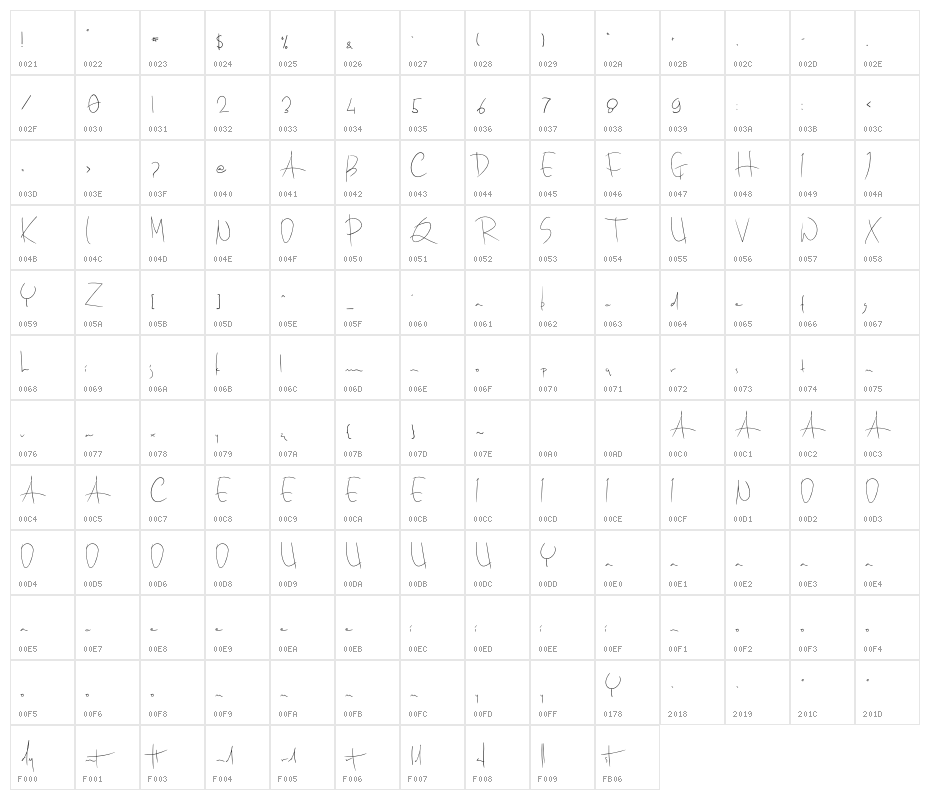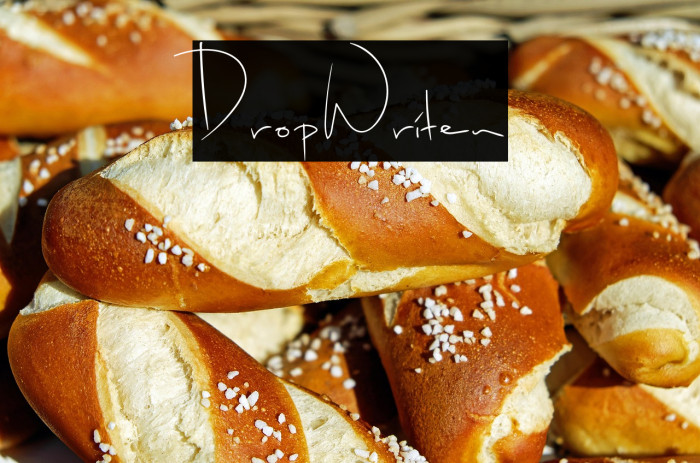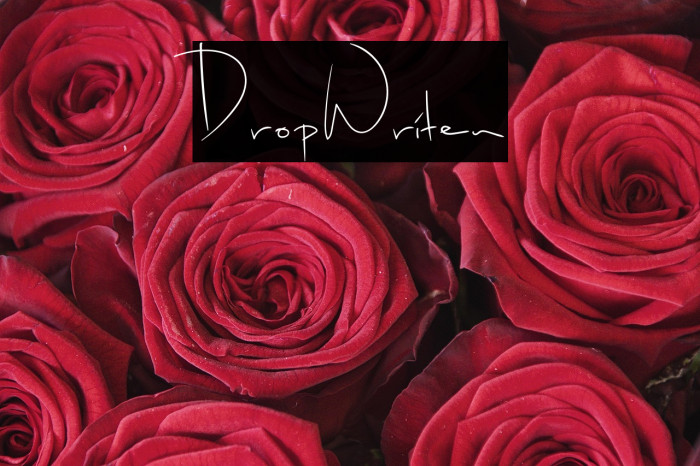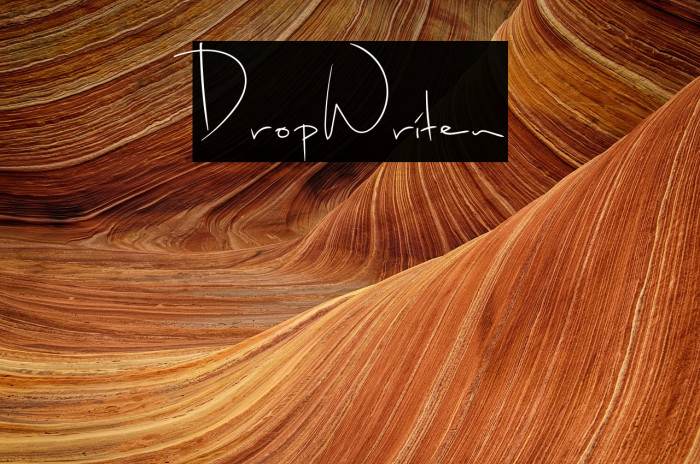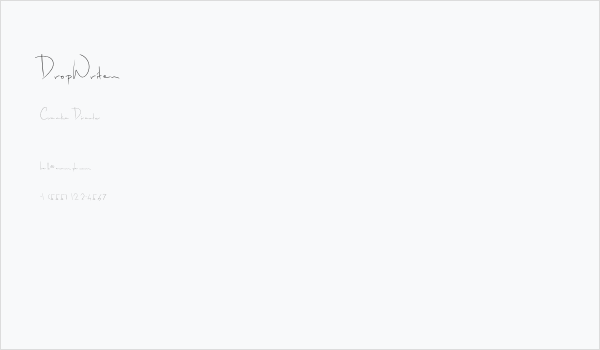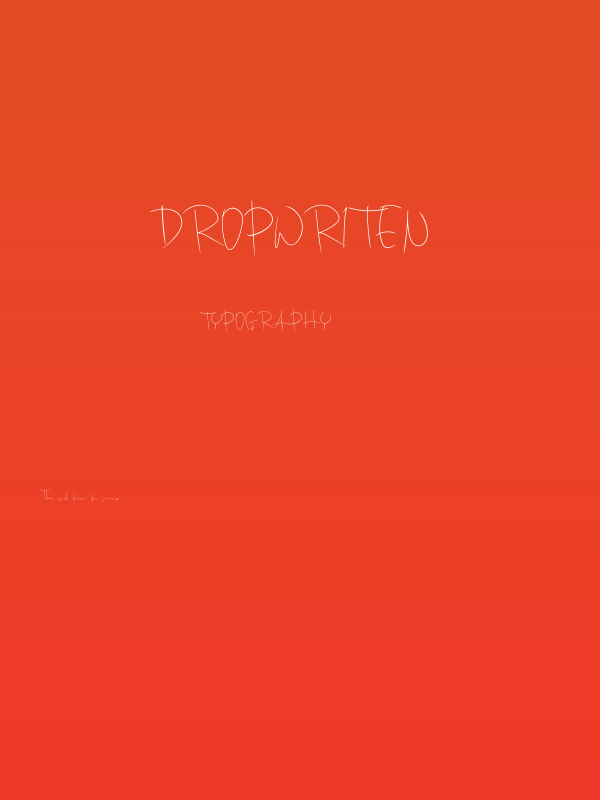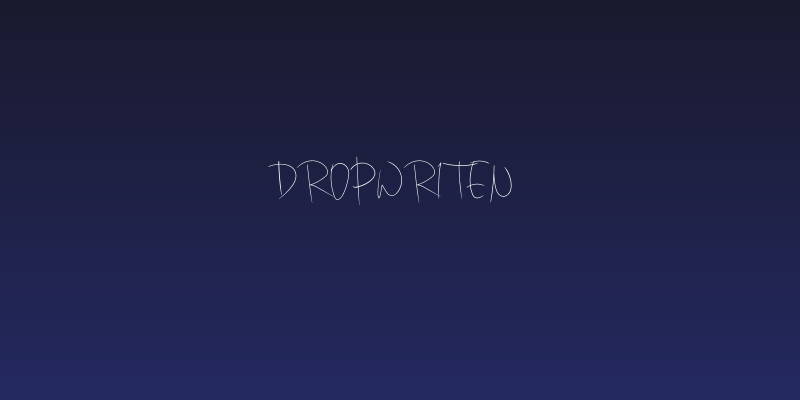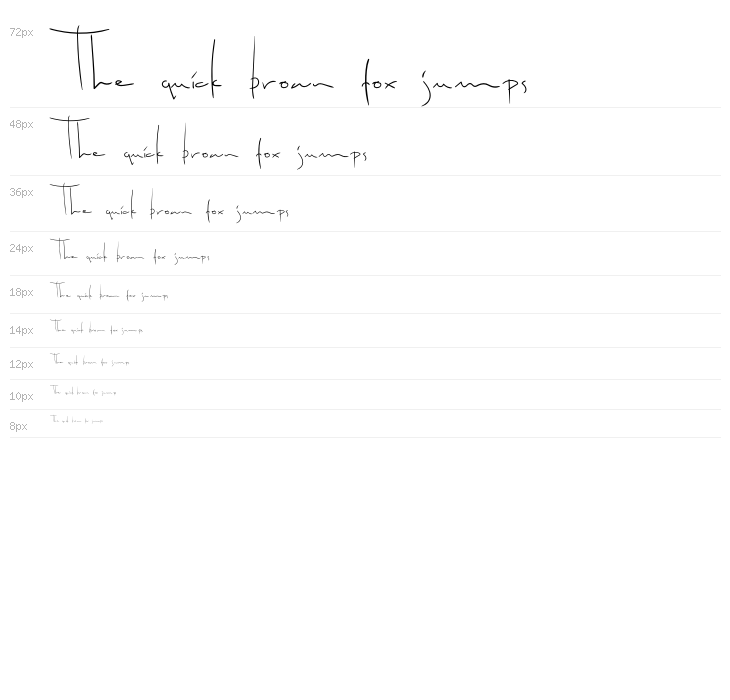
DropWriten Font
DropWriten Description
This font features a distinctive handwritten style, characterized by its irregular, flowing strokes that mimic the natural movement of handwriting. The uppercase letters are tall and slender, with a playful, slightly whimsical appearance. The lowercase letters maintain a consistent style, offering a casual and approachable feel. Numbers and special characters follow the same freeform aesthetic, providing a cohesive look across all characters. The overall impression is one of spontaneity and creativity, making it ideal for projects that require a personal touch.
| Overall Style | Casual, Artistic |
| Use Case | Logos, Invitations, Artistic Projects |
| Proposed Projects | Ideal for personal invitations, creative branding, artistic posters, and any project seeking a handwritten, personal touch. |